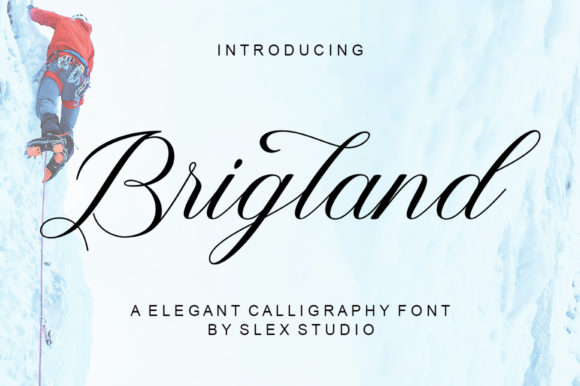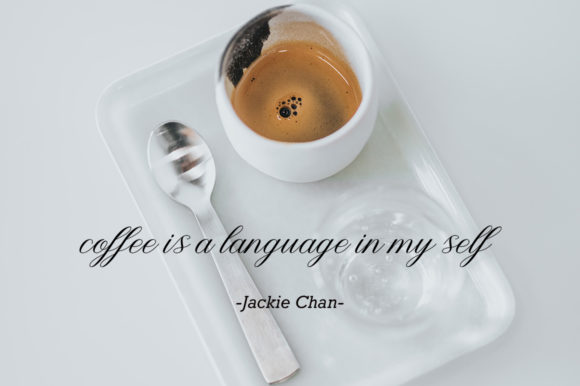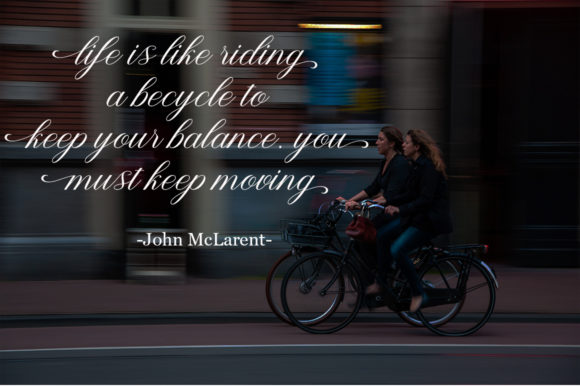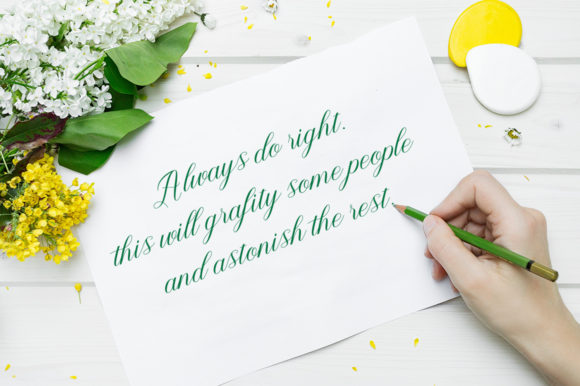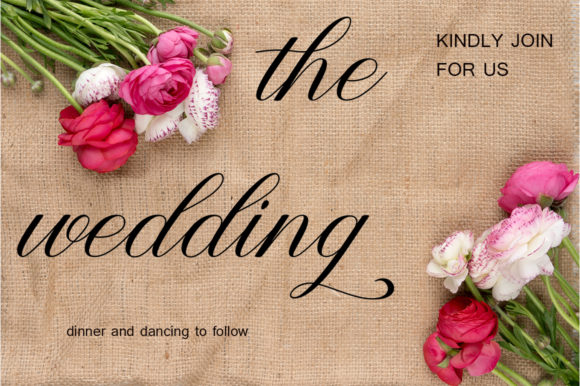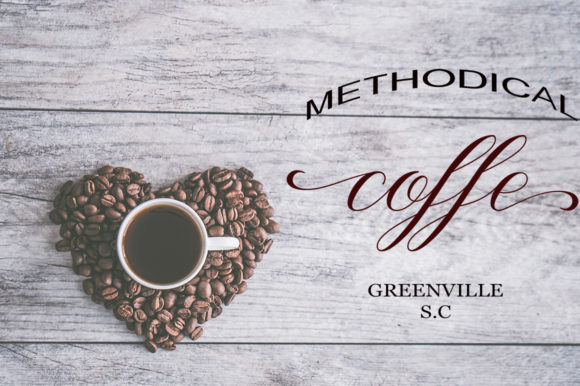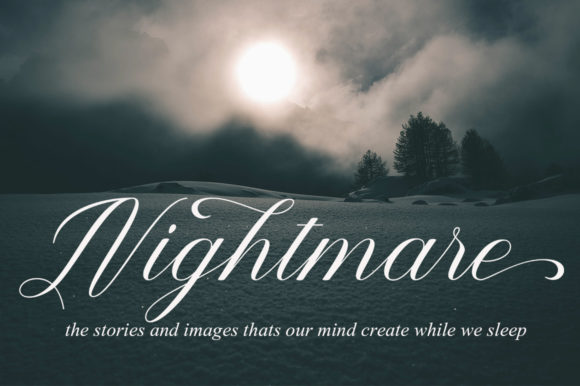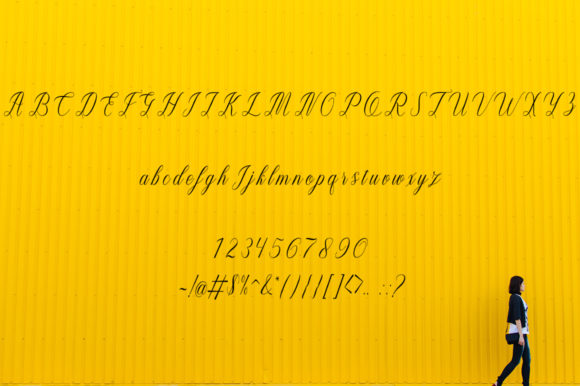
Brigland Font
About Brigland Font
Brigland feels equally charming and elegant. This handwritten font will elevate a wide range of design projects to the highest level, be it branding, headings, wedding designs, invitations, signatures, logos, labels, and much more!